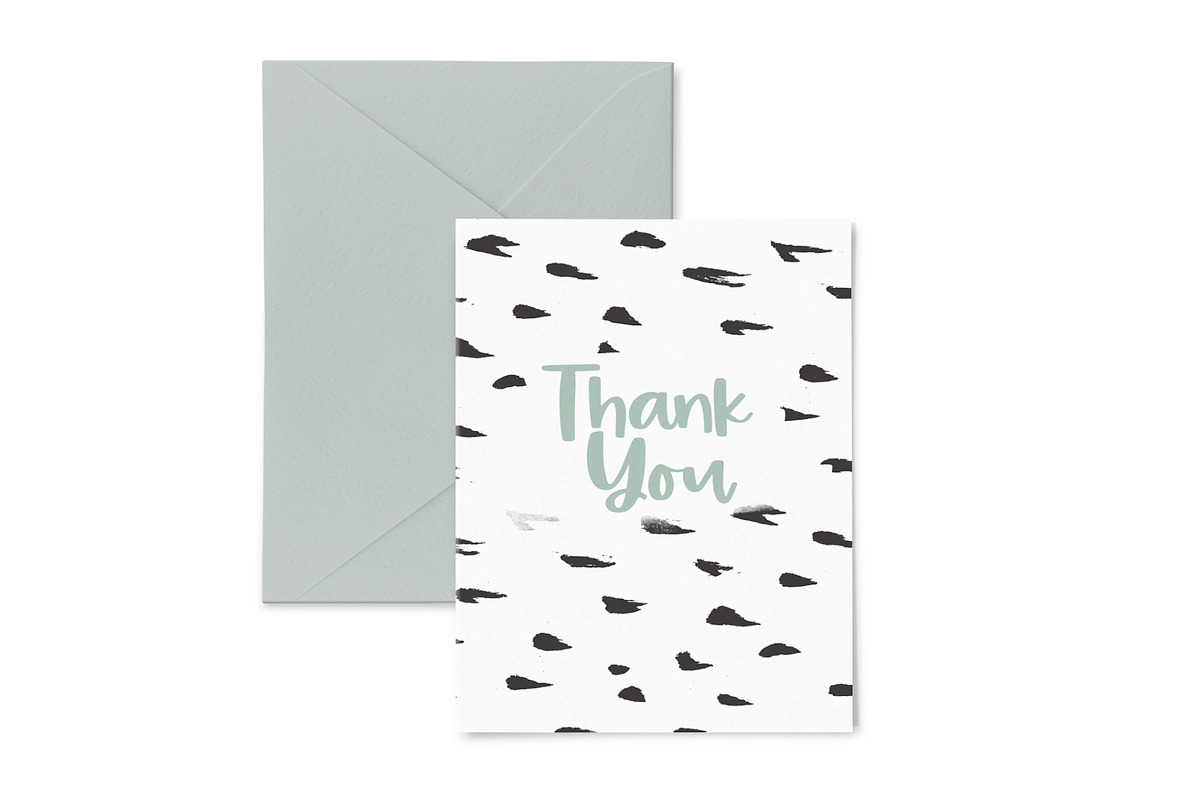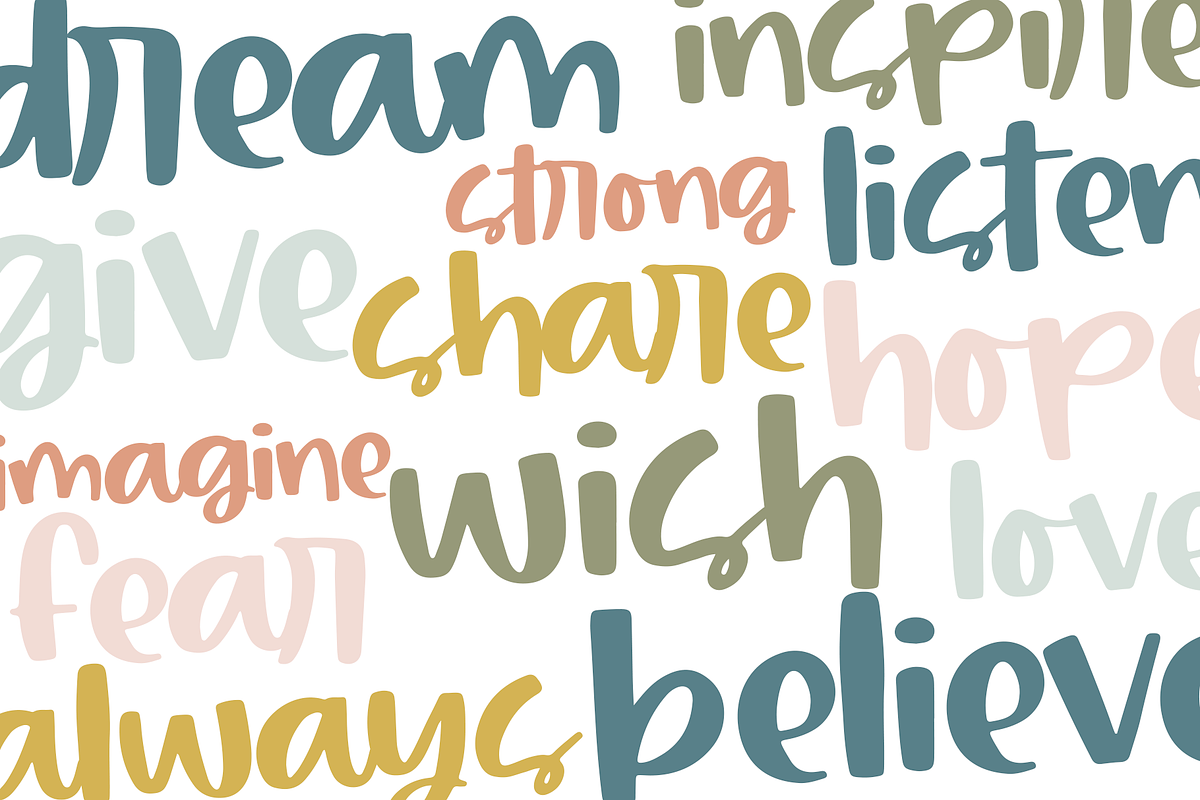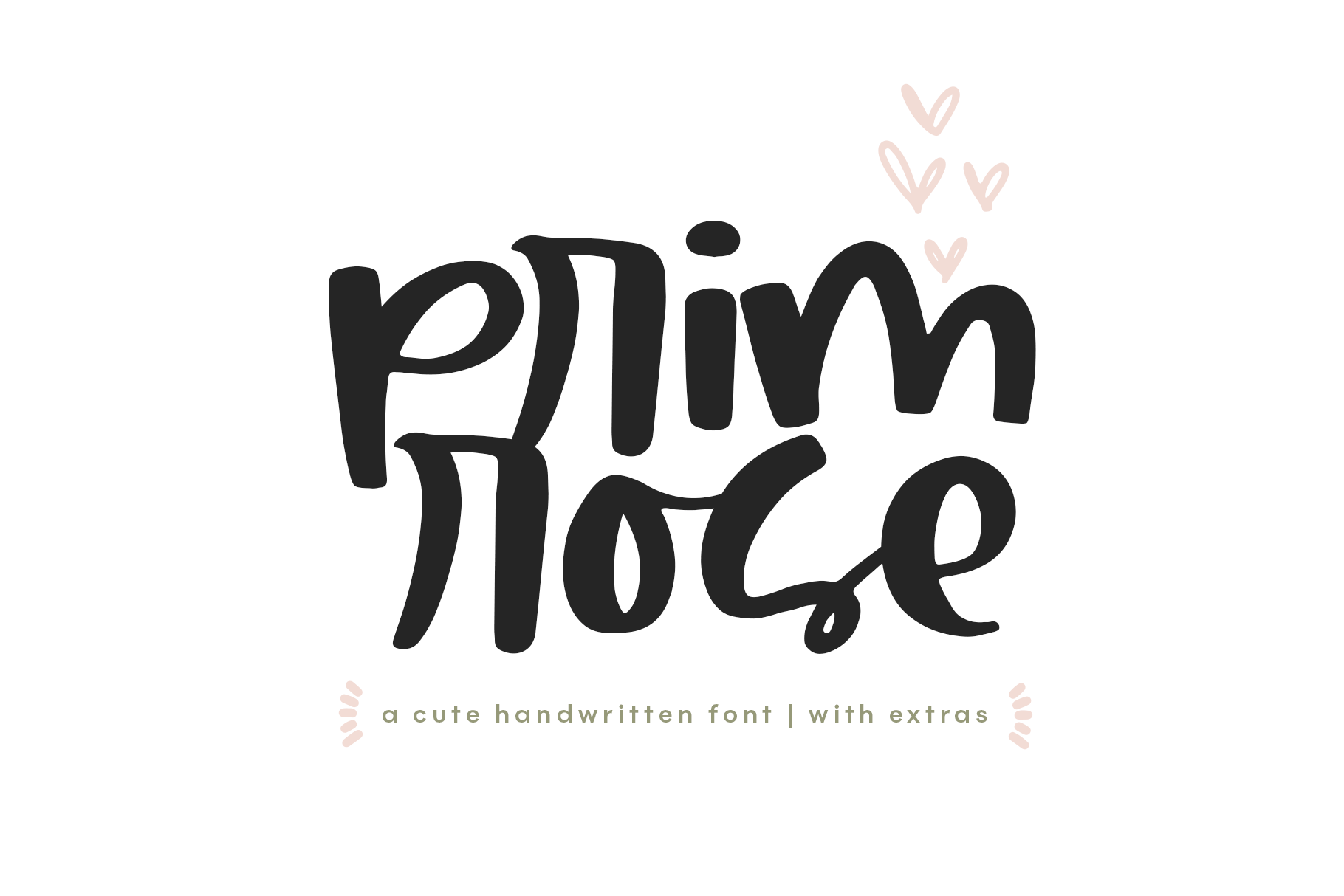
Primrose - Font with Extras
Primrose is handwritten font with a fun and quirky feel! It comes with Primrose Extras - a complimentary doodle font.
Primrose is perfect for modern projects, headings, blogs, logos, brandings, invitations and more!
Accent characters are included.